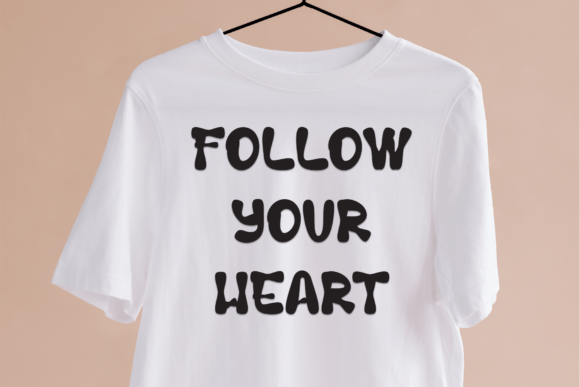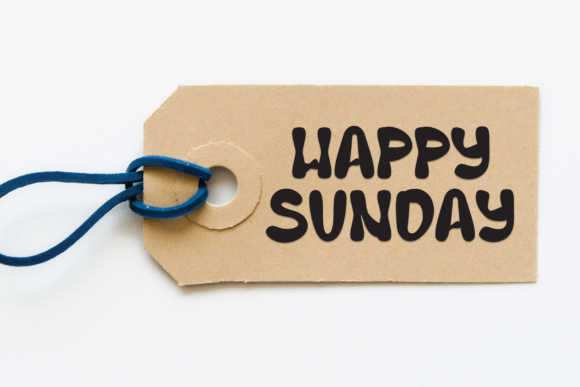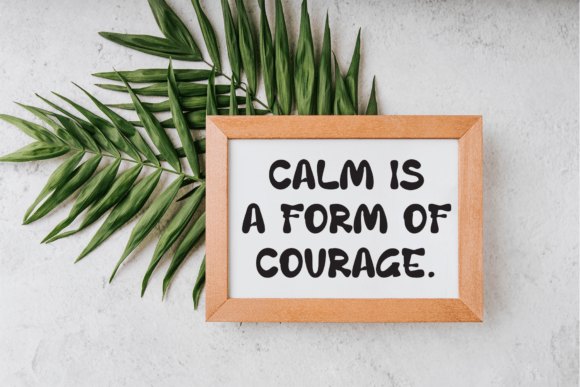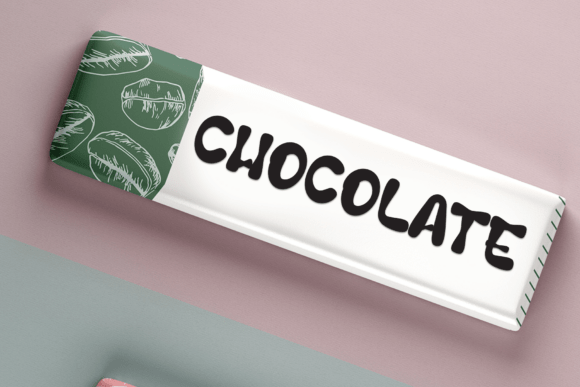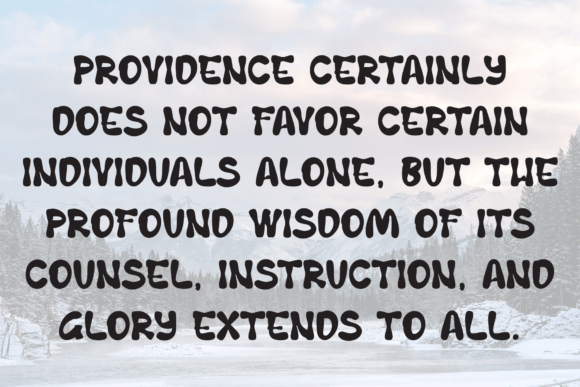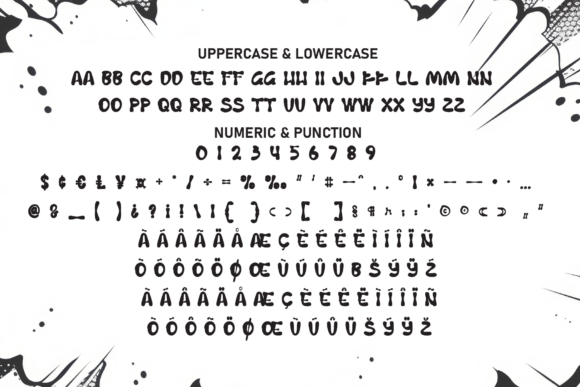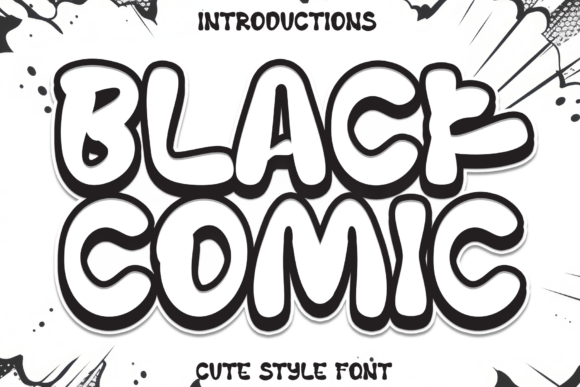
The Power of Personality: Unleashing the Energy of Black Comic Font
I’ll never forget the time I was working on a superhero-themed invitation for a friend’s kid’s birthday party. I had the design concept nailed, but something was missing – the perfect font to capture the essence of classic comic books. That’s when I stumbled upon Black Comic, a bold display font that instantly brought my design to life. With its oversized, pillowy bubble letters and smooth, interlocking curves, it was the perfect match. In this article, I’ll share my experience with Black Comic, its features, and how to make the most of it in your designs.
- ✅ High-impact visual weight: Black Comic packs a punch with its bold, expressive outline that’s perfect for grabbing attention.
- ✅ Smooth, interlocking curves: The font’s curved lines and rounded edges give it a playful, retro charm that’s hard to resist.
- ✅ Perfect for comic book-inspired designs: Whether you’re working on a graphic novel title, a children’s packaging project, or a gaming logo, Black Comic is an excellent choice.
- ⚠️ Limited use cases: Due to its bold and playful nature, Black Comic might not be the best fit for body text or more formal designs.
- ⚠️ Legibility at small sizes: As with many display fonts, Black Comic might become difficult to read at smaller font sizes.
Exploring Alternatives: Similar Fonts to Black Comic
If you love the energy of Black Comic, you might also enjoy these similar fonts:
- Comic Sans: A classic, playful font with a similar bubble-like feel. Use it for more casual, youthful designs.
- Impact: A bold, sans-serif font with a strong visual presence. Ideal for headings and titles that need to make a statement.
- Blowfish: A fun, handwritten font with a similar sense of playfulness. Great for adding a personal touch to your designs.
- BigNoodle: A bold, condensed font with a similar sense of energy. Use it for titles and headings that need to pack a punch.
The Story Behind Black Comic: Designer Inspiration
Black Comic was designed with the goal of capturing the high-octane energy of classic comic books. The designer, inspired by the bold lines and playful curves of vintage comic book illustrations, set out to create a font that would bring that same sense of excitement to digital designs. The result is a typeface that’s equal parts bold, playful, and imaginative.
Q: What is Black Comic font best used for?
A: Black Comic is perfect for designs that require a bold, playful, and energetic feel, such as graphic novel titles, children’s packaging, gaming logos, and social media headers.
Q: Can I use Black Comic for body text?
A: While Black Comic is a beautiful font, it’s not ideal for body text due to its bold and playful nature. It’s best suited for headings and titles.